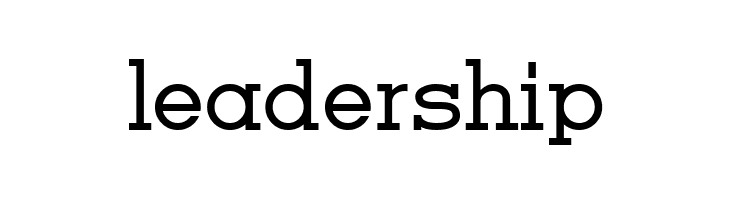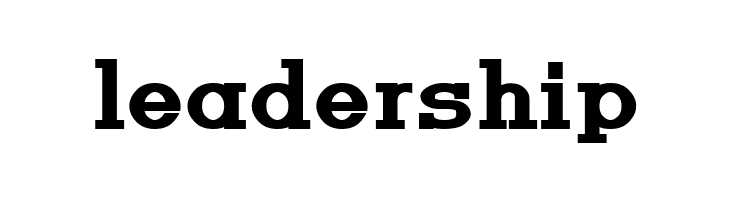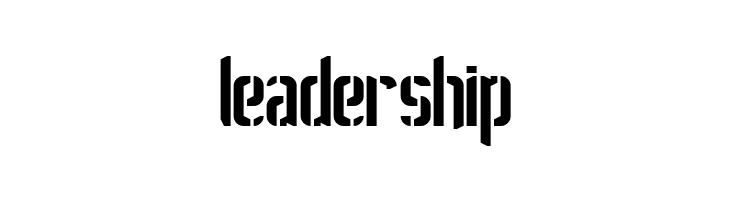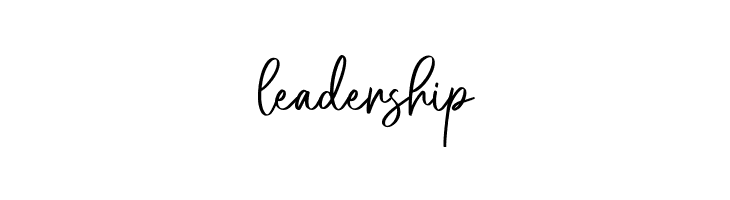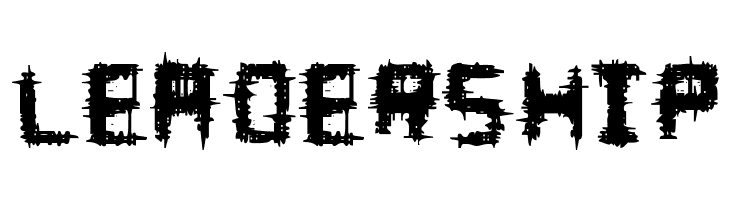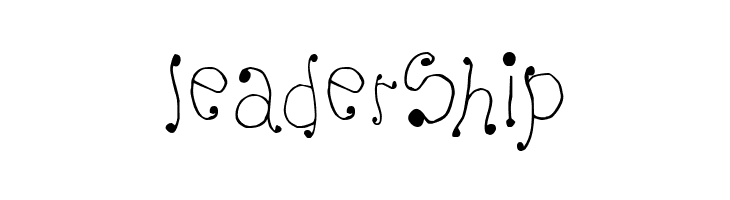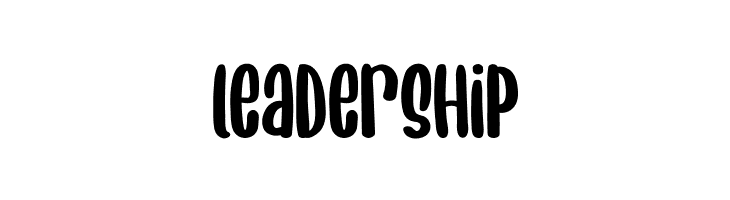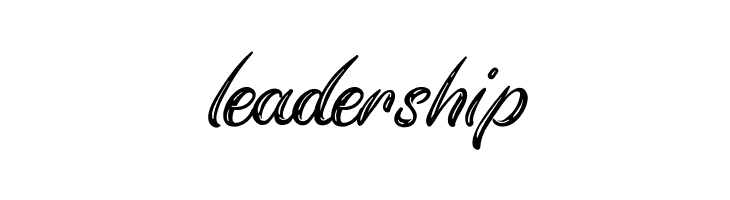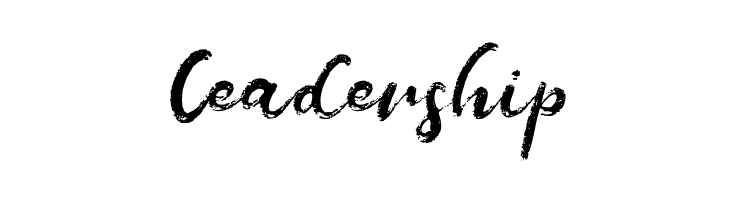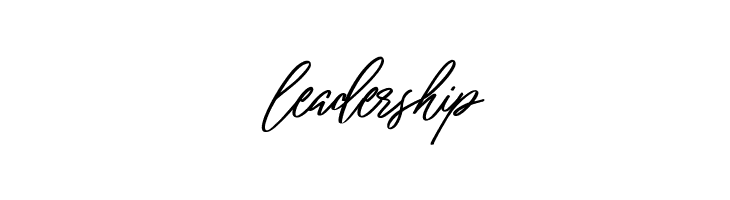
A bold, hand-drawn font with dynamic, irregular strokes and artistic flair.
A bold, three-dimensional font with a vintage, comic book style.
A bold stencil font with a rugged, industrial aesthetic.
A bold, geometric font with sharp, angular edges and a futuristic style.
A futuristic, segmented line font with a digital, high-tech appearance.
A dot-matrix style font with a digital, futuristic look.
A flowing, cursive font with a natural handwritten style.
Decorative font mimicking Mayan glyphs within black discs.
Intricate symbols inspired by ancient Mayan and Mexican iconography.
A bold, angular font with a geometric and modern style.
A decorative font with intricate, symbol-like characters inspired by ancient motifs.
A bold, expressive script font with fluid strokes and elegant slant.
A bold, flowing script font with a modern, playful style.
A bold, expressive script font with flowing, cursive letterforms and artistic swashes.
A maze-like, geometric font with intricate line patterns.
A gothic-inspired font with thorn-like embellishments and bold, dramatic strokes.
A bold, thorny font with a gothic, horror-inspired aesthetic.
A bold, aggressive font with sharp, jagged edges and a tribal flame-like design.
An edgy, thorn-like font with a chaotic and aggressive style.
A grungy, dripping font with a bold, edgy aesthetic.
A bold, distressed font with a grunge, urban aesthetic.
A rugged, hand-drawn font with jagged edges and a mysterious, chaotic style.
A jagged, eerie font ideal for horror themes.
A thorny, jagged font with a dark, edgy aesthetic.